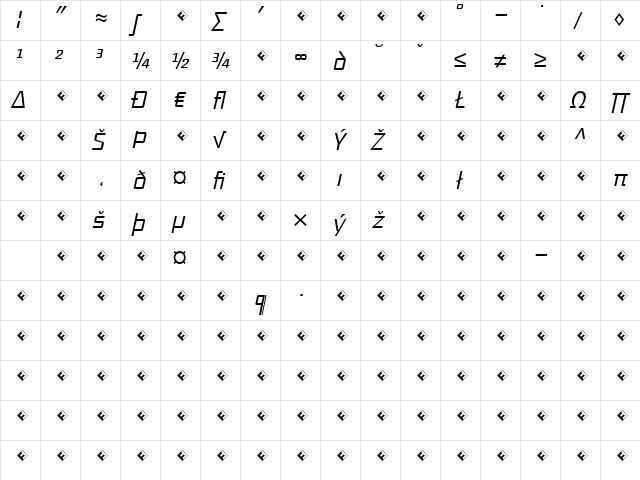
District-LightItalicExp Regular
| Foundry | FontShop International |
| Designer | Albert Boton |
Design Context for District-LightItalicExp Typeface
District-LightItalicExp offers clean, dependable letterforms without strong stylistic allegiance, making it a practical choice for designers who need flexibility. The slanted form adds forward momentum and visual energy. The delicate stroke weight brings airiness and refinement to layouts.
Pro Tip: Use District-LightItalicExp for emphasis, pull quotes, and subheadings where its slanted energy can add rhythm to the layout.